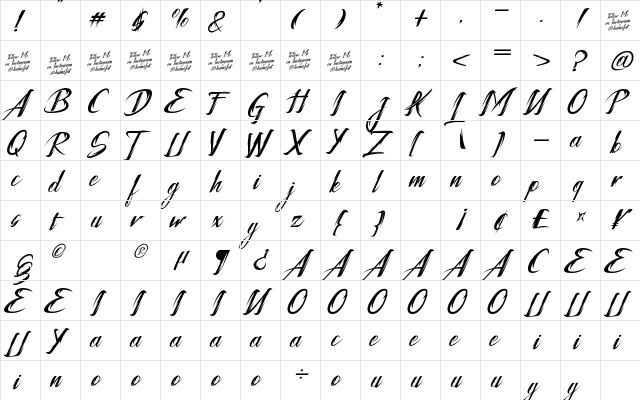
Tattofoo Trl Regular
| Designer | hamzfat |
Design Context for Tattofoo Trl Typeface
Tattofoo Trl is a composed and adaptable typeface that performs quietly and consistently across a wide range of design contexts.